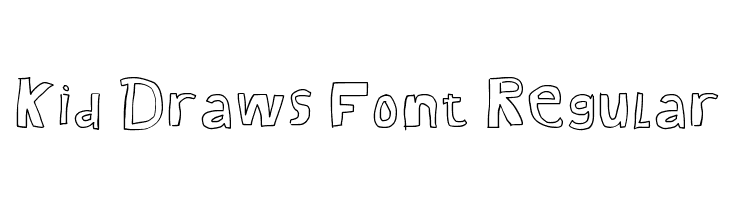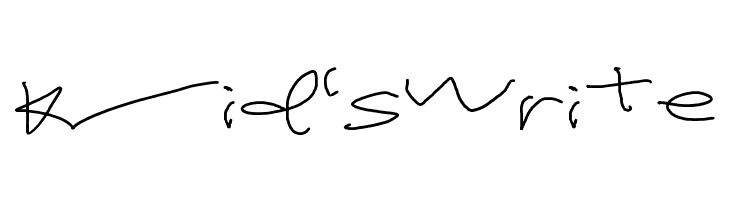
A modern, geometric font with rounded edges and a clean, minimalistic style.
A playful, handwritten font with rounded edges and a friendly appearance.
A playful, hand-drawn font with letters in doodled squares and pencil accents.
A playful font with characters designed to look like they are drawn on pencils.
A distressed, textured font with a rugged, vintage appearance.
A playful, rounded font with a handwritten style, ideal for educational materials.
A clean, rounded font with a primary school penmanship style.
A clean, rounded font with a handwritten style, perfect for educational use.
A clear, rounded font ideal for teaching penmanship to young learners.
A playful, handwritten font with a whimsical and friendly style.